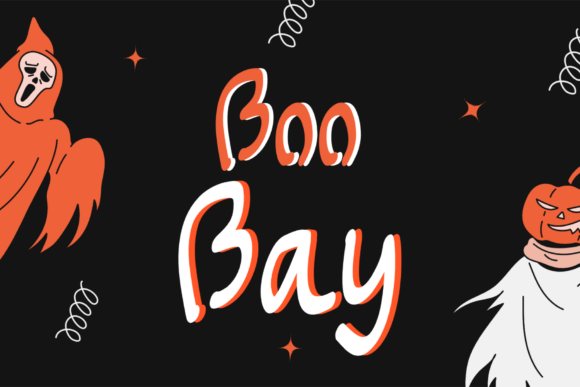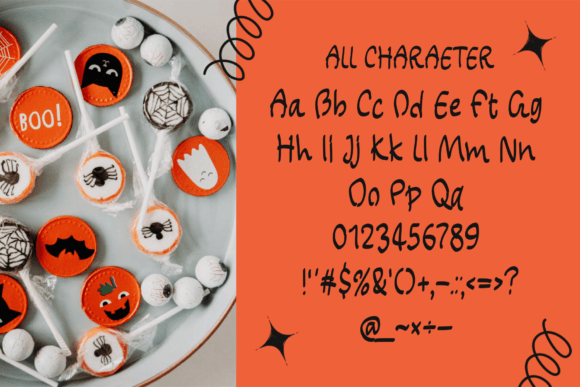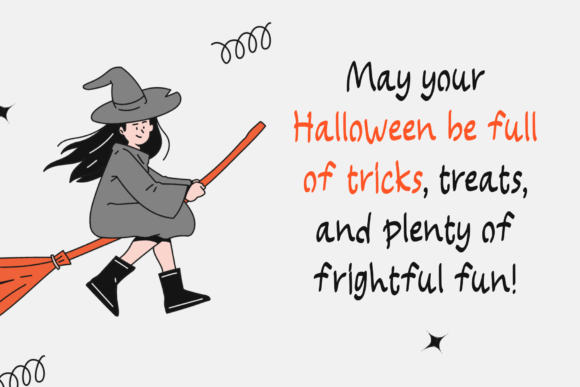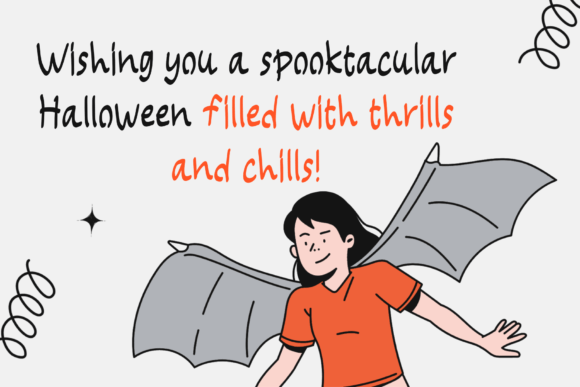
Introducing Boo Bay Font: The Spookiest Addition to Your Design Arsenal
I’ll never forget the time I was working on a Halloween-themed project for a client, and I just couldn’t seem to find the right font to capture the spooky-ooky vibe. The client wanted something that would send shivers down their guests’ spines, but I was stuck in a design rut. That was until I stumbled upon the Boo Bay font – a game-changing, spooky, and playful typeface that instantly elevated my design to the next level!
The Boo Bay Font: A Spooky Masterpiece
Boo Bay font is a whimsical typeface that embodies the essence of Halloween. Its curves and ghostly shadows are sure to add a touch of frightful fun to your designs. Whether you’re creating invitations for a haunted house party, crafting chilling banners for a costume contest, or designing spooky signage for a ghostly gathering, Boo Bay font is the perfect addition to your design toolkit.
- ✨ Whimsical curves and ghostly shadows that add a touch of spookiness to any design
- ✅ Easy to read, even in smaller font sizes
- 🎃 Perfect for Halloween-themed designs, but also versatile enough to use for other spooky or whimsical projects
While Boo Bay font is an amazing addition to any design project, there are a few quirks to keep in mind:
- 🤔 Some users may find the font a bit too playful or childish for certain projects
- ⚠️ Limited availability of certain characters or glyphs, which may require some creative problem-solving
The Designer Inspiration Behind Boo Bay Font
Boo Bay font was inspired by the magic and mystery of Halloween. The designer wanted to create a font that would capture the essence of the spooky season, while also being playful and fun. The result is a font that’s perfect for designers who want to add a touch of frightful fun to their projects.
Q: What is Boo Bay font?
A: Boo Bay font is a spooky and playful typeface that’s perfect for designs that require a touch of frightful fun.